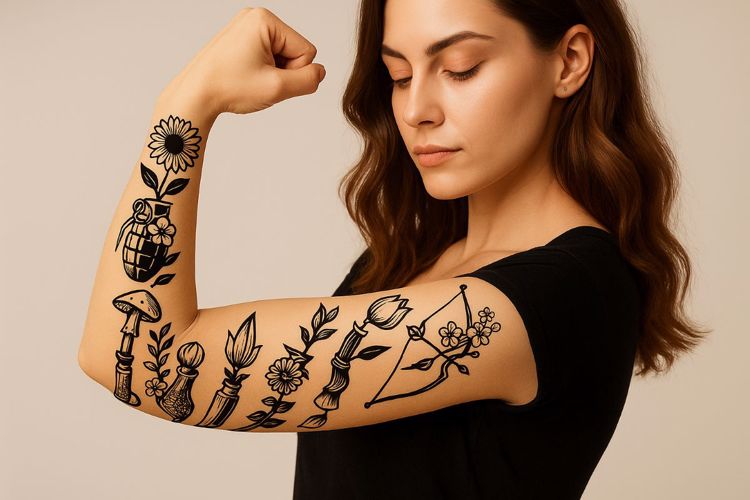
Guns Floral Tattoo Font
Download a premium-quality digital tattoo dingbat font and flash pack featuring 16 gun and flower tattoo designs that blend guns and flowers in powerful symbolic compositions. This free tattoo bundle is perfect for tattoo artists, illustrators, and creators looking for bold, ink-ready art that combines strength and softness.